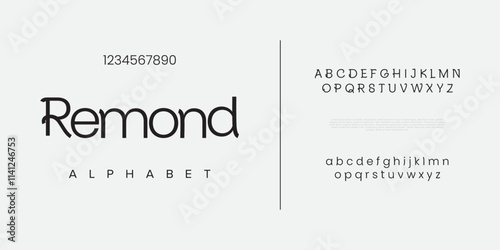
Remond creative modern geometric urban alphabet font. Digital abstract futuristic, game, techno, robot, music, logo, sport, minimal technology typography. Simple numeric vector illustration